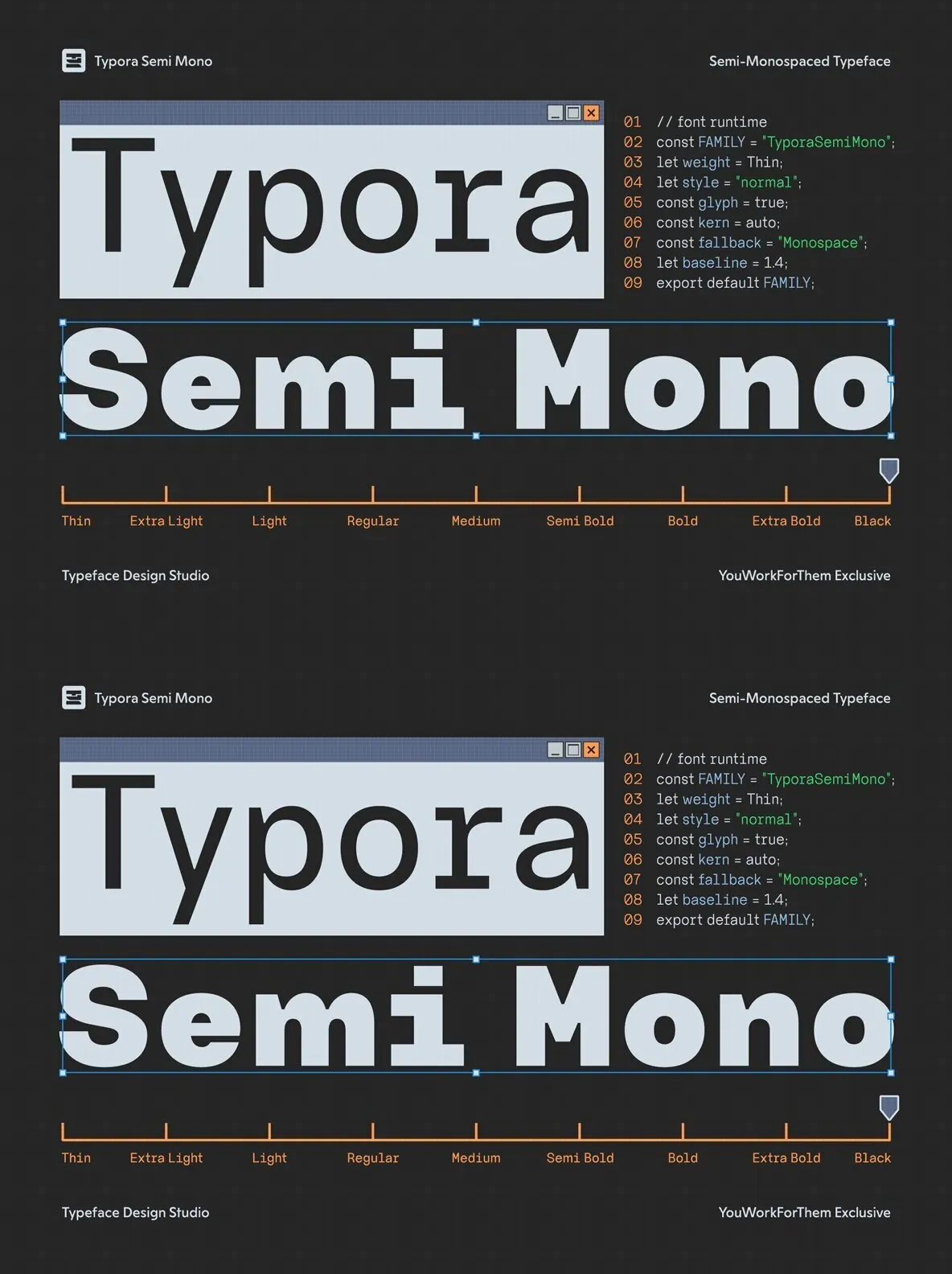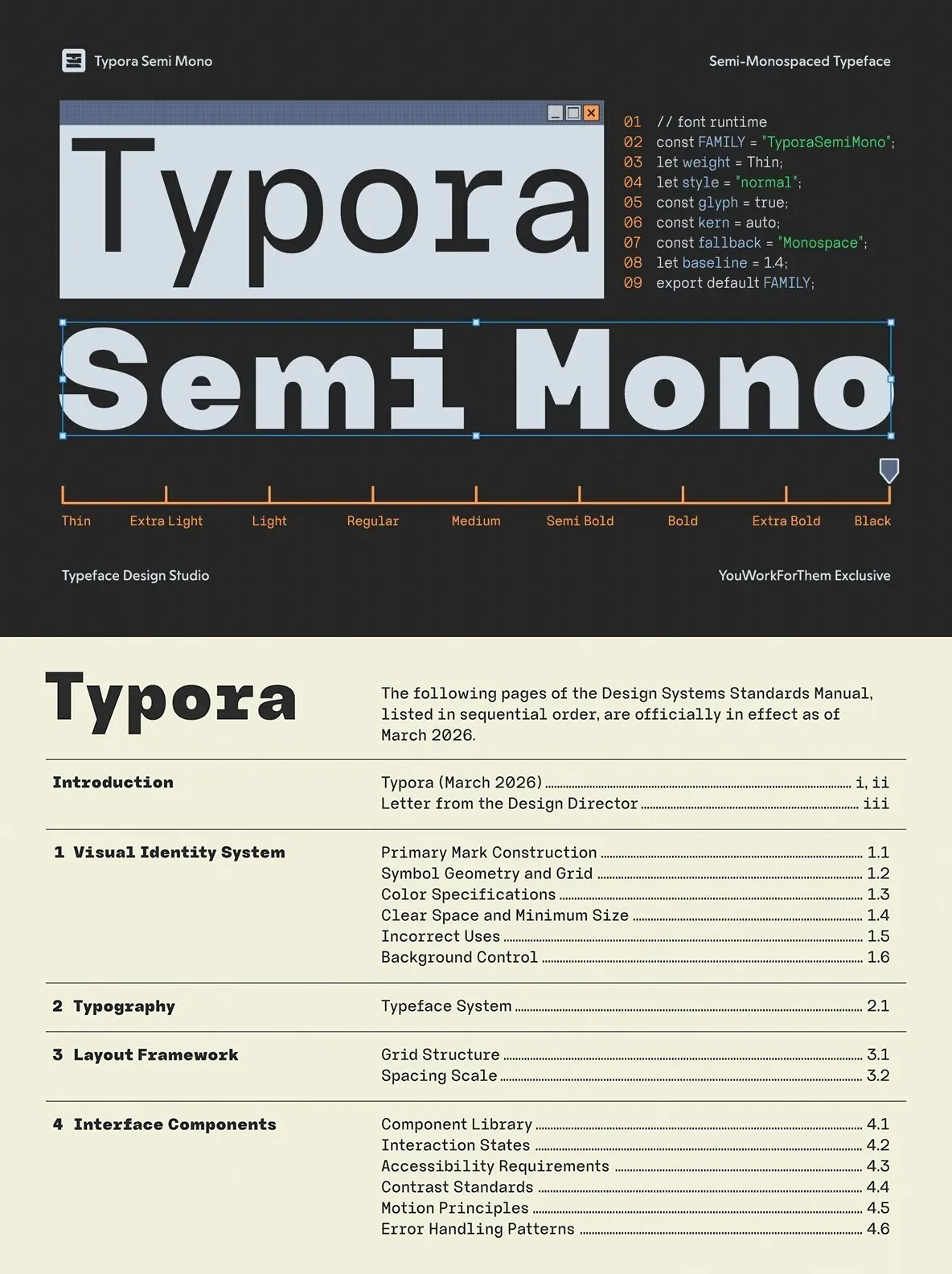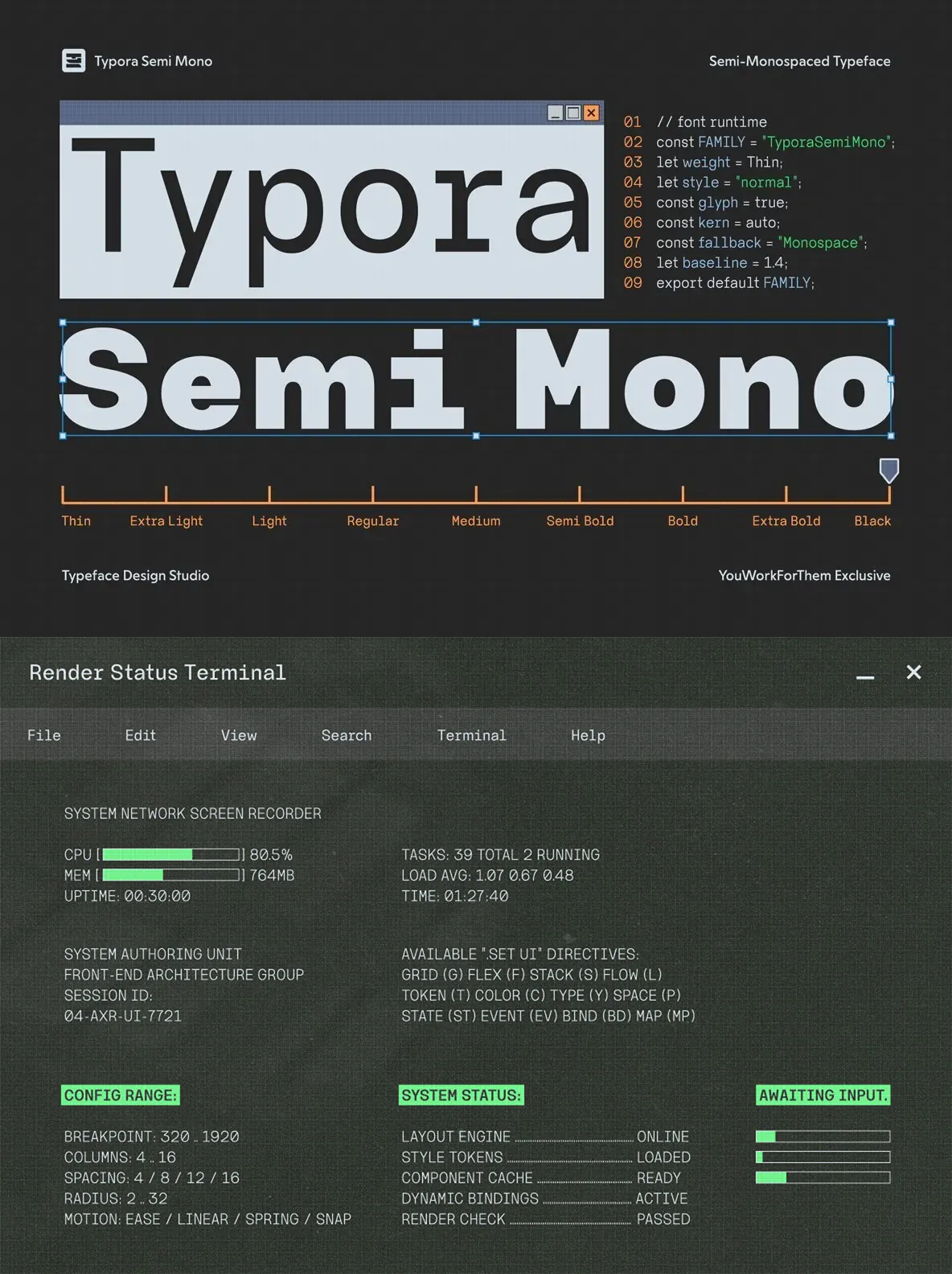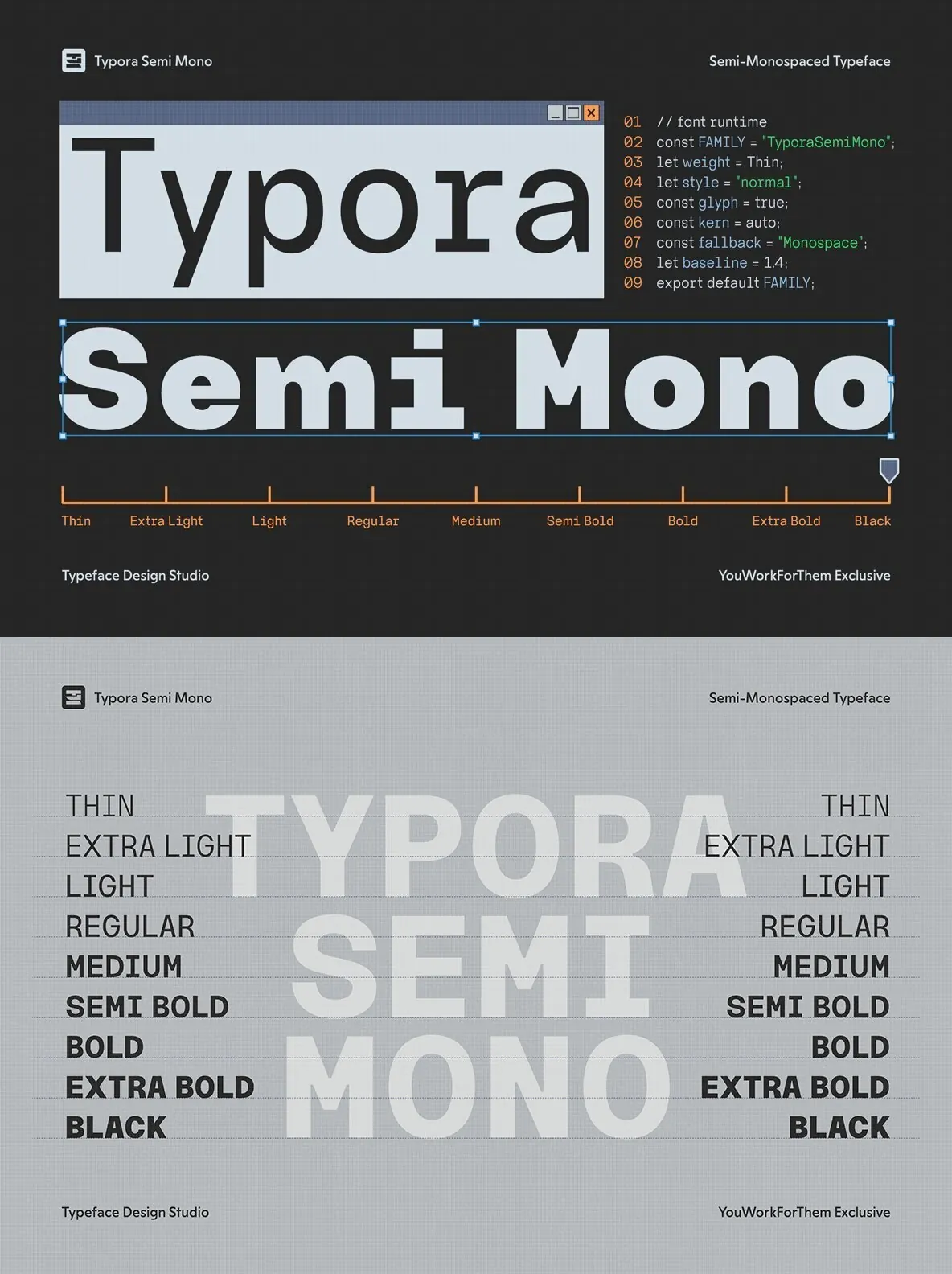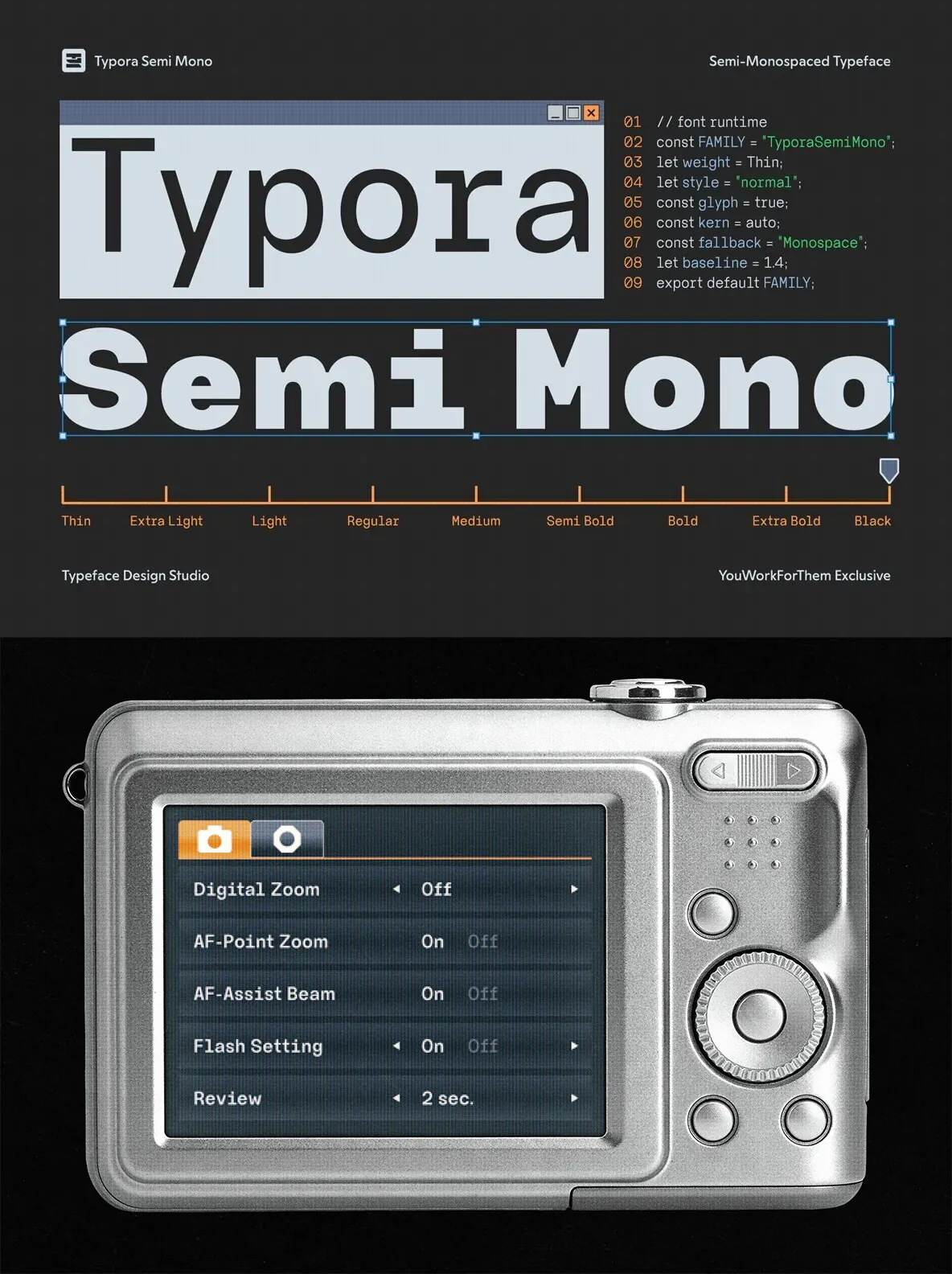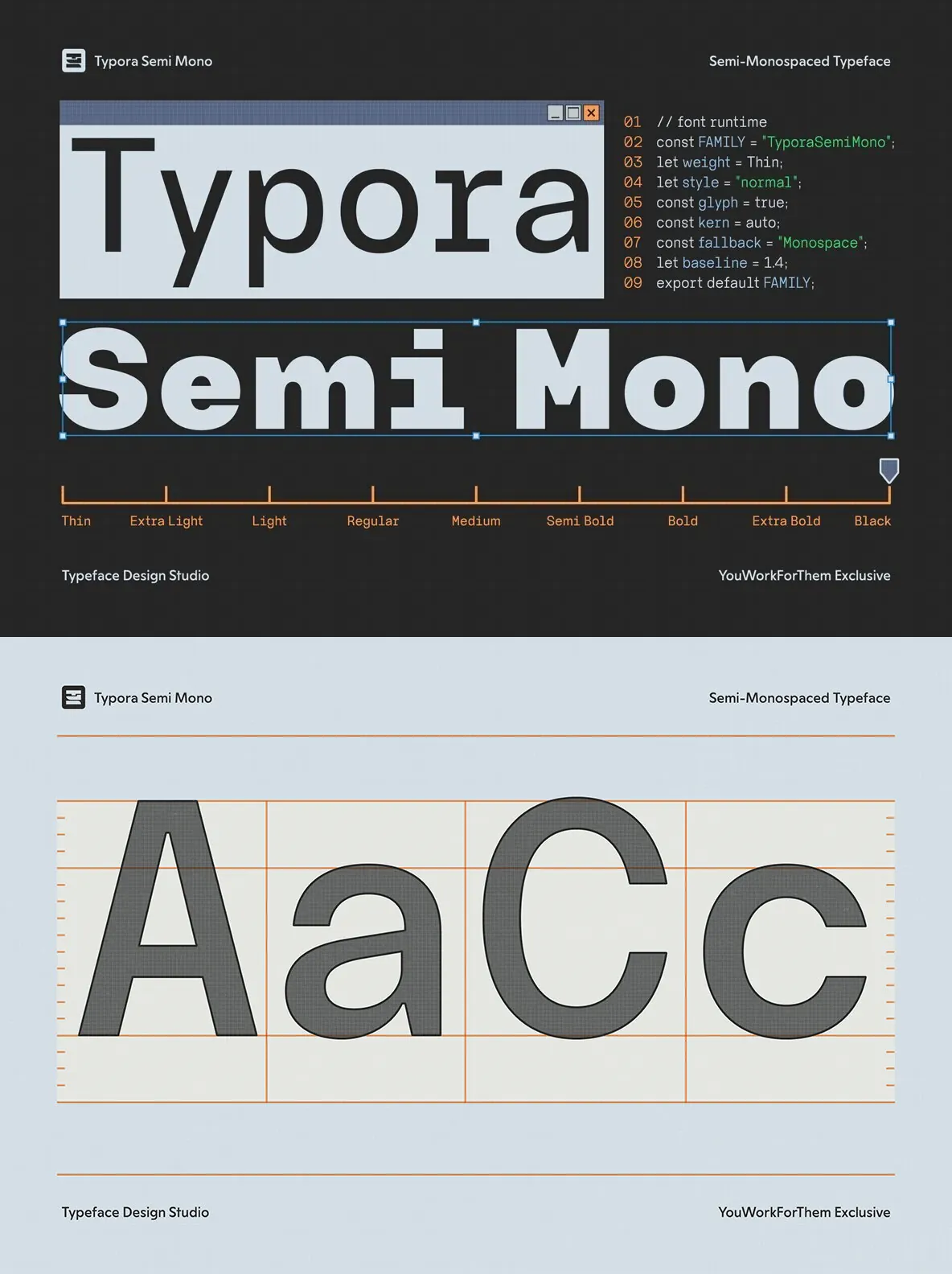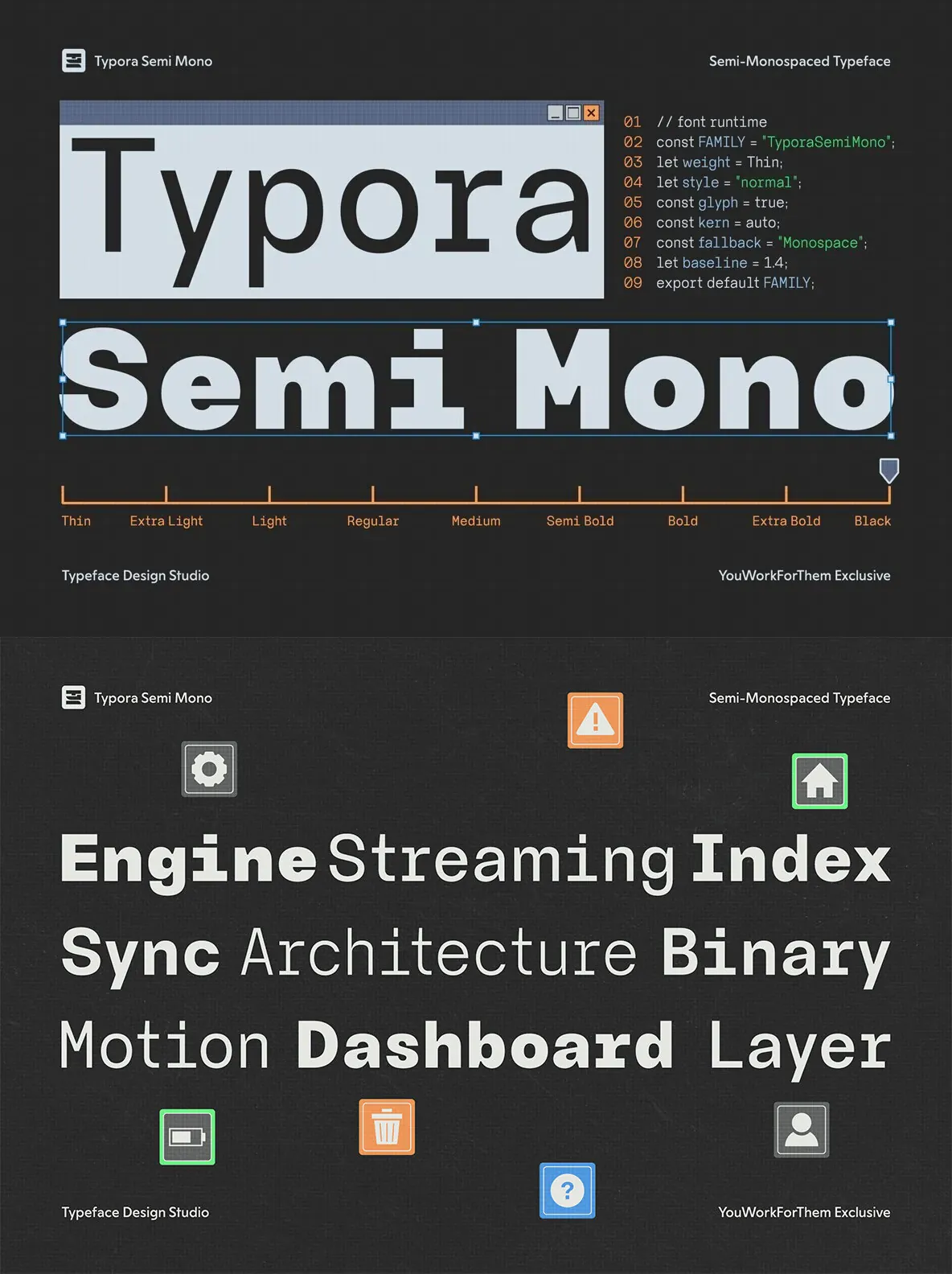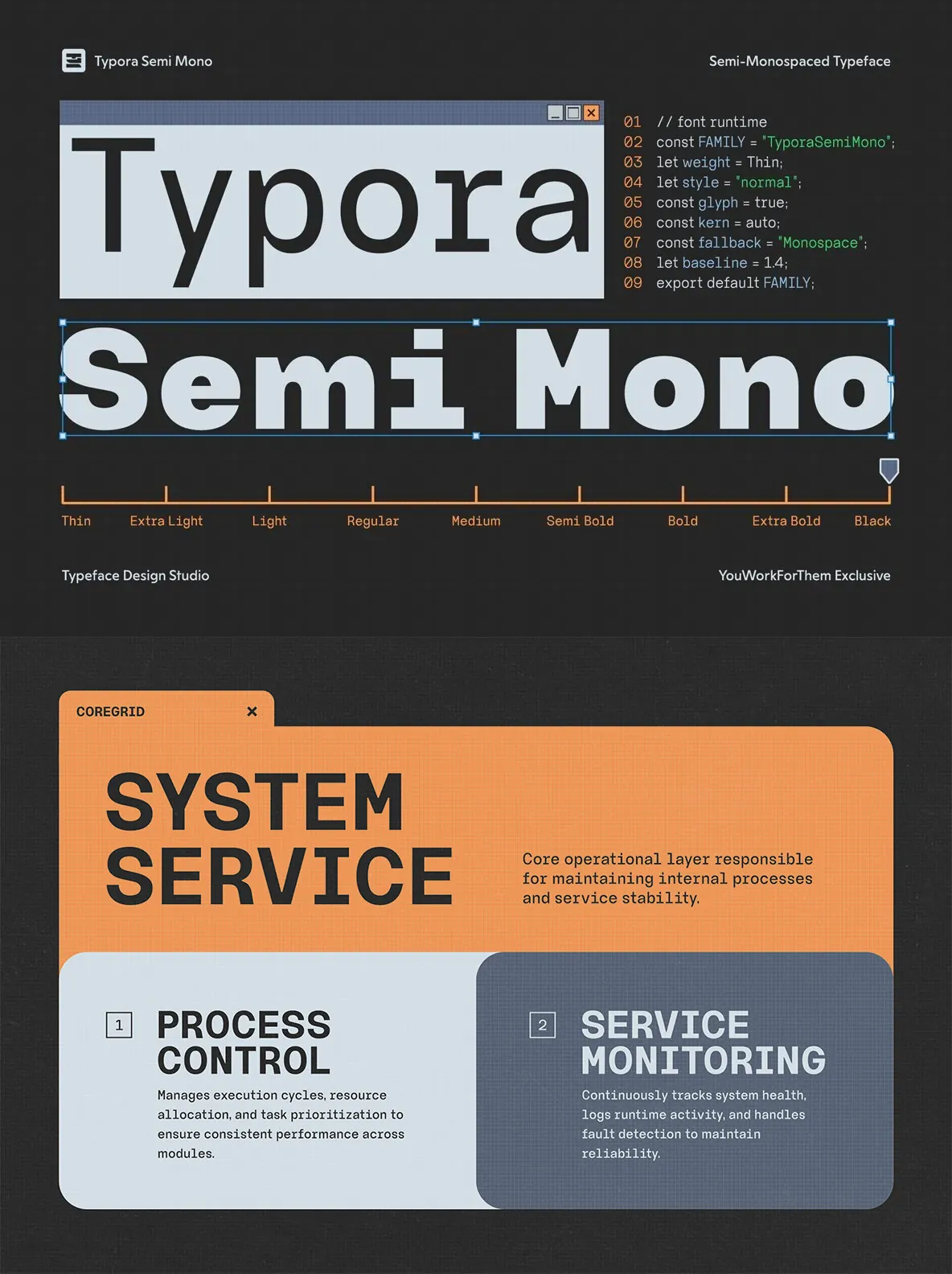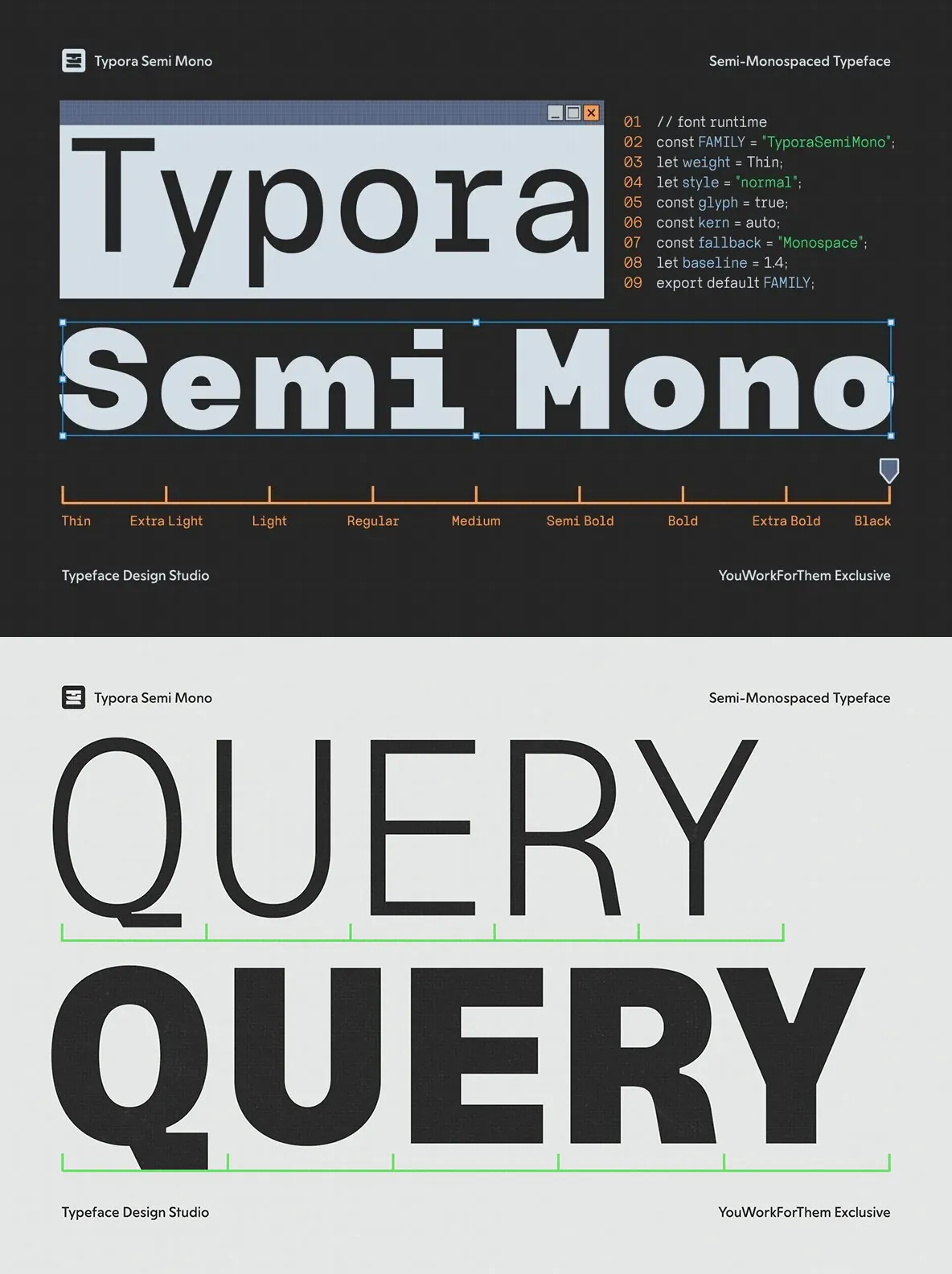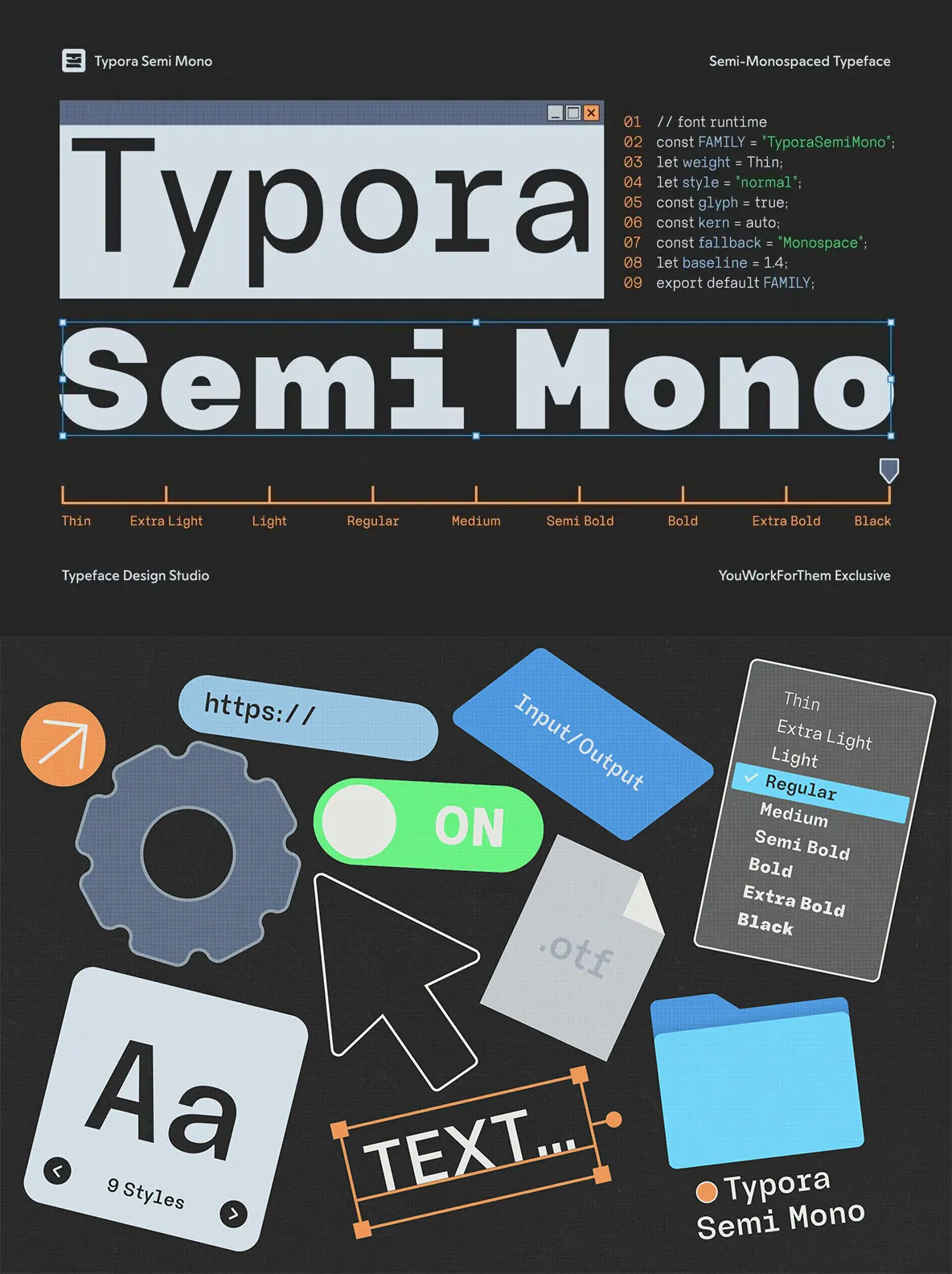
Typora Semi Mono Font
Typora Semi Mono: A Refined Typeface for Precision and Elegance
Typora Semi Mono offers a balanced blend of monospaced precision and the grace of proportional typography. This semi-monospaced typeface family, with its clean geometry and subtle humanist details, brings a distinct character suitable for modern digital environments. Designers and developers will appreciate how its measured spacing and technical structure provide clarity, making it an excellent choice for applications where legibility meets style.
With nine meticulously developed weights from Thin to Black, Typora Semi Mono supports a broad spectrum of creative needs. Its versatility shines in UI/UX projects, code editors, editorial layouts, branding initiatives, and digital interfaces. The typeface’s blend of rigor and minimalism ensures reliable performance in both expressive and functional contexts, all while maintaining a sense of approachability and sophistication.